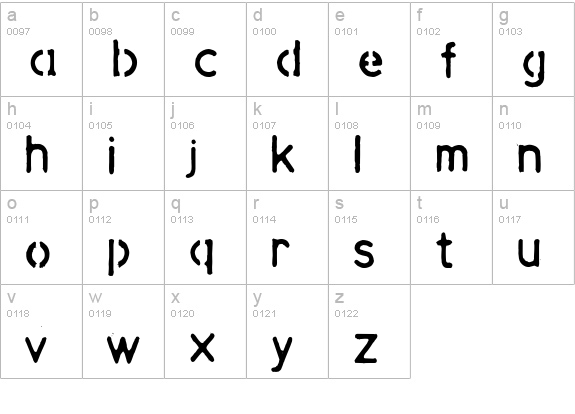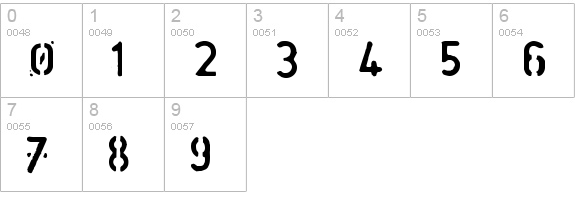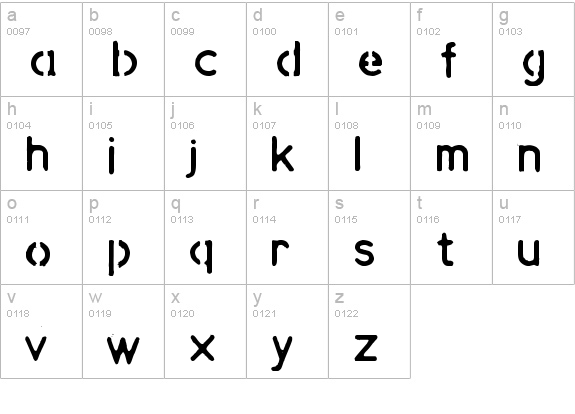
Introducing SpaceJunk, a captivating and mesmerizing font that will transport your designs into the vastness of outer space. With its futuristic and edgy appeal, this font is perfect for adding a touch of cosmic flair to your projects. SpaceJunk is a free font that seamlessly blends modernity with a hint of retro charm. Its sleek and angular letterforms exude a sense of movement and energy, echoing the infinite possibilities that lie beyond our planet's atmosphere. Whether you're designing a sci-fi movie poster, a digital artwork, or a cutting-edge logo, SpaceJunk will elevate your creations to new celestial heights. This font's versatility knows no bounds. From headlines to body text, SpaceJunk maintains its legibility and impact across various sizes and mediums. Its clean lines and well-defined contours make it a breeze to read on screens, while its unique character makes it a standout choice for print materials. SpaceJunk is freely available to download at FontsMarket.com. With just a few clicks, you can embark on a cosmic typographic journey. Whether you're a professional designer or an enthusiastic hobbyist, this font is a valuable addition to your creative arsenal. Embrace the intergalactic allure of SpaceJunk and let your imagination soar among the stars.